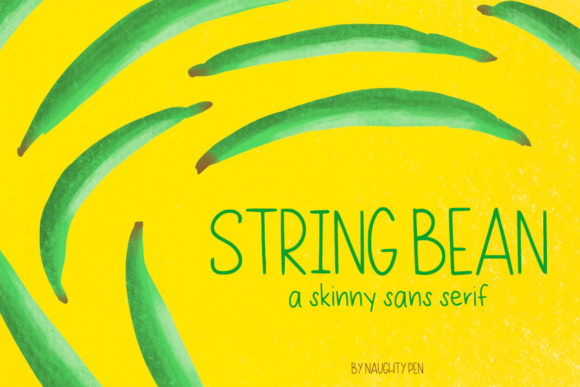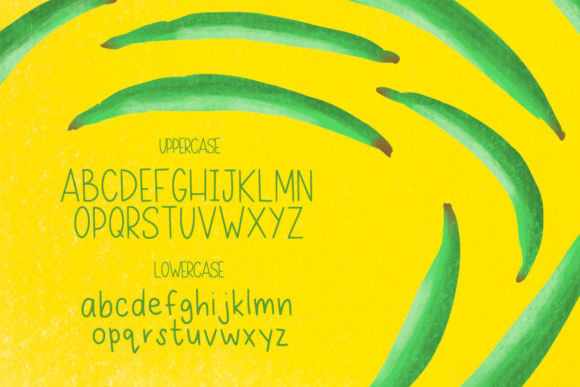
String Bean Skinny Font
About String Bean Skinny Font
String Bean Skinny is a minimal and neat sans serif font. It can easily be matched to an incredibly large set of projects, so add it to your creative ideas and notice how it makes them stand out!